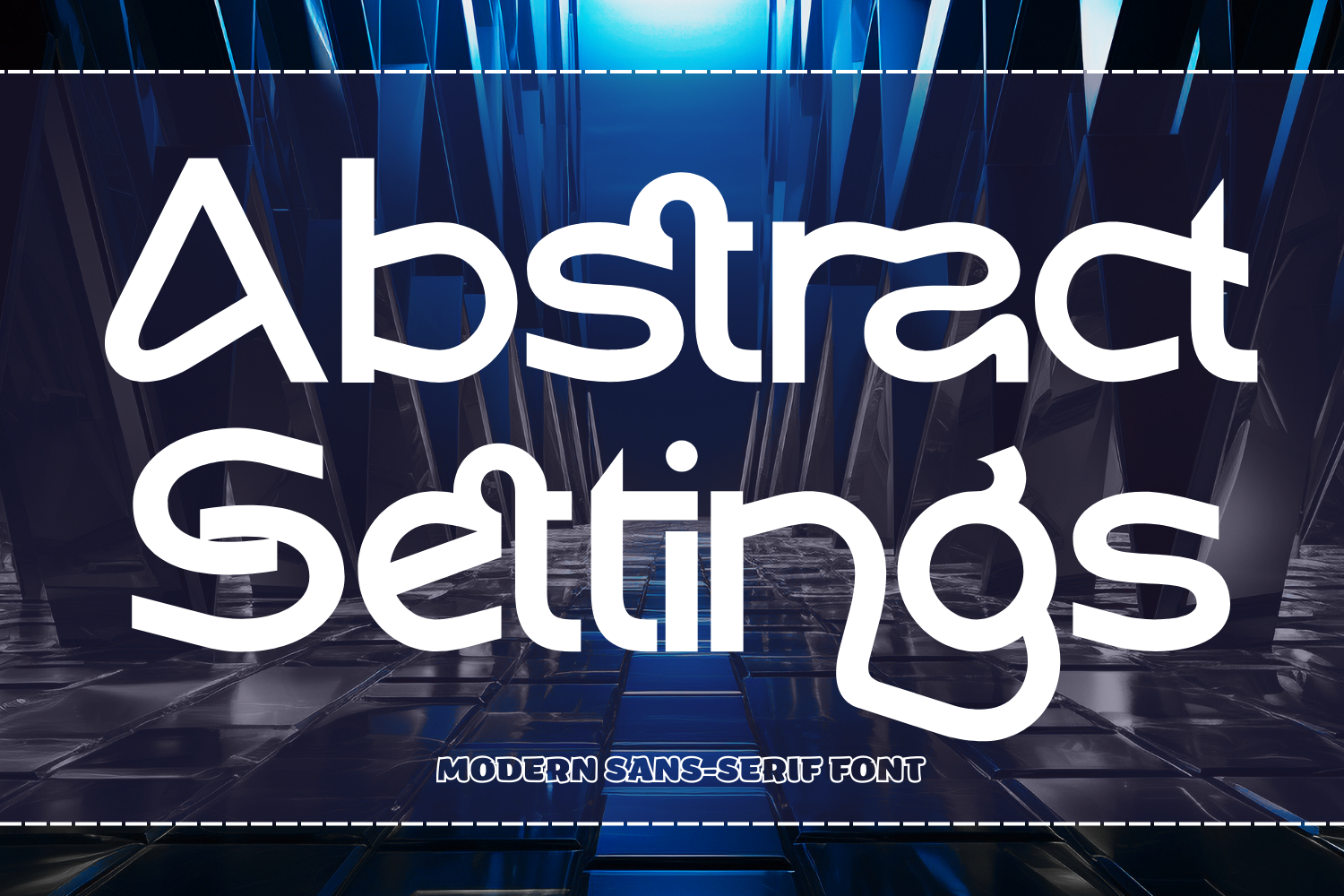
Abstract Settings - Futuristic Font
Abstract Settings - Futuristic Font - A Futuristic Abstract Sans Display Font, is a forward-thinking abstract sans serif display font designed for modern creatives who dare to break conventions. With its fluid letterforms, asymmetric shapes, and experimental construction, this font brings a futuristic and tech-inspired aesthetic to any project. Perfect for digital artwork, technology branding, music covers, sci-fi posters, and editorial design, Abstract Settings delivers a unique blend of clean structure and abstract flair. Its unconventional curves and sharp angles create a visual rhythm that feels both dynamic and contemporary.
- Uppercase & Lowercase Letters
- ~100 Experimental Ligatures
- Accented Characters for Multilingual Support
- Unique abstract alternates
About 100 ligatures combined with Stylistic Alternates Font:
ac ad al an ar as at au av be ca ce ch co ct de di ea ec ed ee el em en ep er es et fe fo fr ge ha he hi ho ie ic il in io ir is it ju ke la le li ll lo ly ma me mi nc nd ne ng no nt ns oc of om on oo op or ot ou ow pa pr ra rd re ri ro rs rt se sh si so ss st ta te th ti to tr tt um un ur ve wi wo